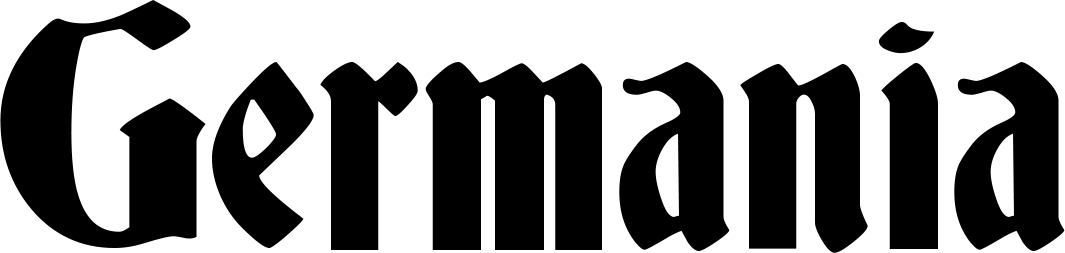
Germania Font
Designed byDieter Steffmann
It’s time to try a gothic font and grab your customer’s attention at first sight. This case is a set of 2 distinct versions, filled and hollow, that can be used for video games, posters, logos, and so forth. Germania gives your text design a tough and grunge feel. Just give it a chance and see how incredible it appears.